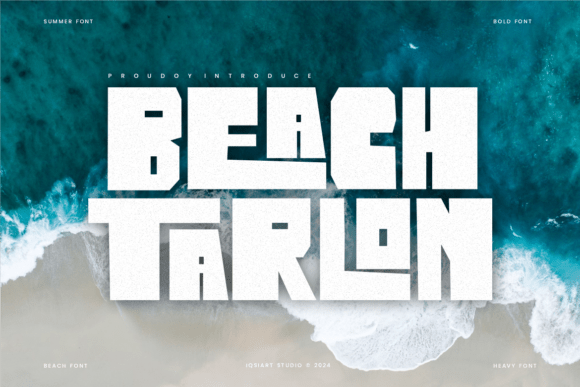
Introducing Beach Tarlon Font: The Ultimate Display Font for Beach-Themed Designs
Are you looking for a font that captures the essence of the ocean and sandy shores? Look no further than Beach Tarlon Font, a striking and heavyweight display font that embodies the raw energy of the beach. With its bold, blocky structure and textured details, Beach Tarlon is perfect for beach-themed designs, branding, posters, headlines, and adventure-inspired projects.
The Inspiration Behind Beach Tarlon Font
Beach Tarlon Font is inspired by the rugged yet playful vibe of the beach. The font’s creator drew inspiration from the ocean waves, sandy shores, and the carefree spirit of summer. The result is a font that exudes a sense of adventure, freedom, and joy.
The font’s design is characterized by its bold, blocky structure, which gives it a sturdy and robust feel. The textured details add a layer of depth and visual interest, making Beach Tarlon Font perfect for headlines, titles, and other display text.
Key Features of Beach Tarlon Font
- Bold and Blocky Structure: Beach Tarlon Font features a bold, blocky structure that gives it a sturdy and robust feel.
- Textured Details: The font’s textured details add a layer of depth and visual interest, making it perfect for display text.
- Rugged yet Playful Vibe: Beach Tarlon Font exudes a rugged yet playful summer vibe, making it perfect for beach-themed designs and adventure-inspired projects.
- High-Quality Design: The font is designed with high-quality craftsmanship, ensuring that it looks great in any design.
Use Cases for Beach Tarlon Font
Beach Tarlon Font is perfect for a variety of design projects, including:
- Beach-Themed Designs: The font is ideal for beach-themed designs, such as posters, flyers, and brochures.
- Branding: Beach Tarlon Font can be used for branding projects, such as logos, business cards, and letterheads.
- Posters and Headlines: The font’s bold and blocky structure makes it perfect for posters, headlines, and other display text.
- Adventure-Inspired Projects: Beach Tarlon Font is also suitable for adventure-inspired projects, such as travel brochures, outdoor gear branding, and sports equipment design.
Benefits of Using Beach Tarlon Font
Using Beach Tarlon Font in your design projects offers several benefits, including:
- Unique and Eye-Catching Design: The font’s bold and blocky structure, combined with its textured details, makes it a unique and eye-catching addition to any design.
- Versatility: Beach Tarlon Font can be used for a variety of design projects, from beach-themed designs to adventure-inspired projects.
- High-Quality Craftsmanship: The font is designed with high-quality craftsmanship, ensuring that it looks great in any design.
- Easy to Read: Despite its bold and blocky structure, Beach Tarlon Font is easy to read, making it perfect for display text.
Tips for Using Beach Tarlon Font
Here are some tips for using Beach Tarlon Font in your design projects:
- Use it for Display Text: Beach Tarlon Font is perfect for display text, such as headlines, titles, and captions.
- Pair it with a Sans-Serif Font: Pair Beach Tarlon Font with a sans-serif font for body text to create a nice contrast.
- Experiment with Colors: Beach Tarlon Font looks great in a variety of colors, so don’t be afraid to experiment.
- Use it for Branding: Beach Tarlon Font can be used for branding projects, such as logos and business cards.
Beach Tarlon Font is a striking and heavyweight display font that embodies the raw energy of the beach. With its bold, blocky structure and textured details, this font exudes a rugged yet playful summer vibe. Perfect for beach-themed designs, branding, posters, headlines, and adventure-inspired projects, Beach Tarlon Font brings a powerful and stylish touch to any creative work.